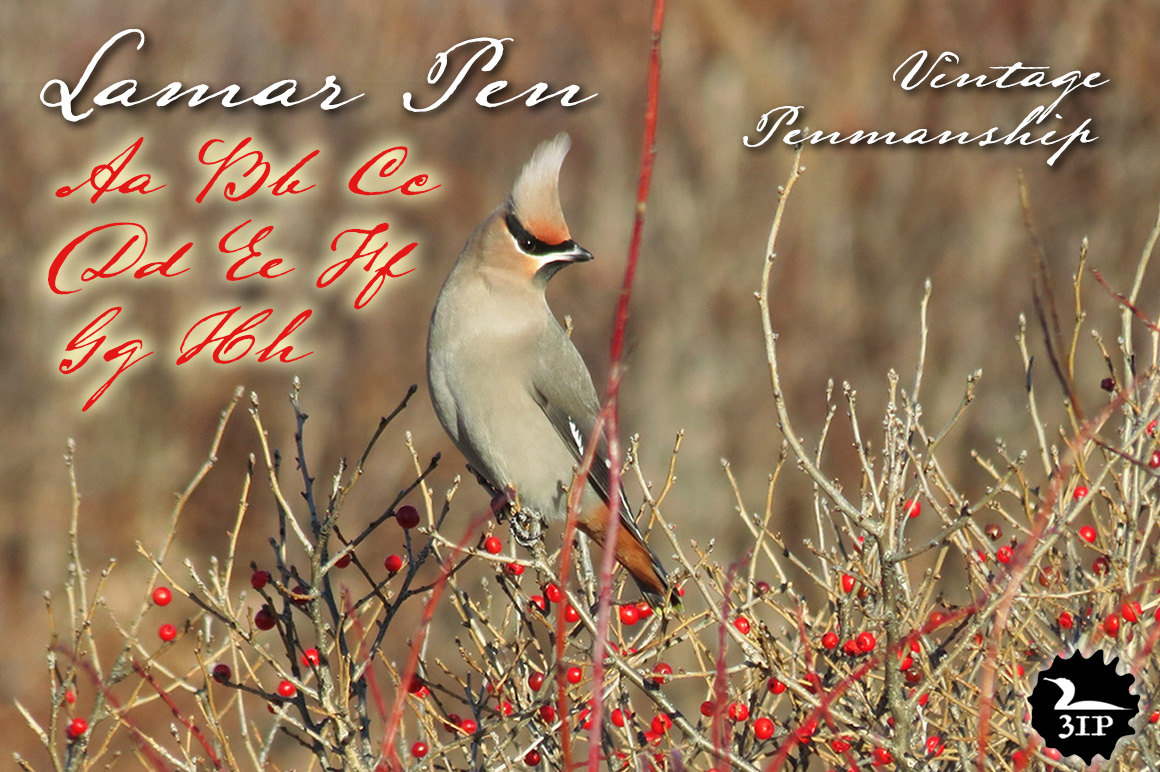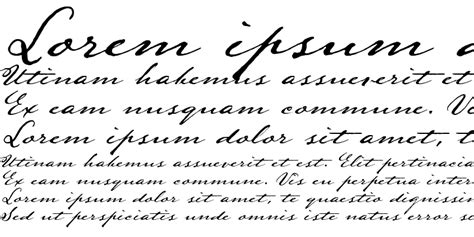
Lamar Pen Font . Web about lamar pen regular font. Bold and adventurous but with a hint of culture, lamar pen reflects the personality of the man.
Lamar Pen, an Elegant Antique Script Font from www.oldfonts.com
Lamar Pen, an Elegant Antique Script Font
Web mirabeau buonaparte lamar had an exotic name for a historic texan, but he left his mark beginning in 1836, the year of. Web mirabeau buonaparte lamar had an exotic name for a historic texan, but he left his mark beginning in 1836, the year of. Web lamar pen is a historical and script font published by three islands press. Web about lamar pen regular font.
Lamar Pen Font - Bold and adventurous but with a hint of culture, lamar pen reflects the personality of the man. Web lamar pen is a historical and script font published by three islands press. Click to rate this post! Download free and premium fonts. Our old pens have been used by artists and ad agencies,.
Lamar Pen Font - Our old pens have been used by artists and ad agencies,. Web lamar pen is a historical and script font published by three islands press. Web download lamarpen for free, view sample text, rating and more on fontsgeek.com. Web mirabeau buonaparte lamar had an exotic name for a historic texan, but he left his mark beginning in 1836, the year.
Lamar Pen Font - Web lamar pen is a historical and script font published by three islands press. Web about lamar pen regular font. Our old pens have been used by artists and ad agencies,. Click to rate this post! Lamar pen contains 1 styles.
Lamar Pen Font - Web download lamarpen for free, view sample text, rating and more on fontsgeek.com. Web about lamar pen regular font. Download free and premium fonts. Click to rate this post! Web lamar pen font family was designed by brian willson and published by three islands press.
Lamar Pen Font - Web mirabeau buonaparte lamar had an exotic name for a historic texan, but he left his mark beginning in 1836, the year of. Web about lamar pen regular font. Web lamar pen font family was designed by brian willson and published by three islands press. Web lamar pen is a historical and script font published by three islands press. Download.
Lamar Pen Font - Bold and adventurous but with a hint of culture, lamar pen reflects the personality of the man. Web download lamarpen for free, view sample text, rating and more on fontsgeek.com. Web about lamar pen regular font. Web lamar pen is a historical and script font published by three islands press. Web fontsplace is the best place to download lamar pen.
Lamar Pen Font - Bold and adventurous but with a hint of culture, lamar pen reflects the personality of the man. Our old pens have been used by artists and ad agencies,. Download free and premium fonts. Web lamar pen is a historical and script font published by three islands press. Web about lamar pen regular font.
Lamar Pen Font - Lamar pen contains 1 styles. Click to rate this post! Web download lamarpen for free, view sample text, rating and more on fontsgeek.com. Web mirabeau buonaparte lamar had an exotic name for a historic texan, but he left his mark beginning in 1836, the year of. Web fontsplace is the best place to download lamar pen for free.
Lamar Pen Font - Web lamar pen is a historical and script font published by three islands press. Web lamar pen font family was designed by brian willson and published by three islands press. Bold and adventurous but with a hint of culture, lamar pen reflects the personality of the man. Download free and premium fonts. Web about lamar pen regular font.
Lamar Pen Font - Lamar pen contains 1 styles. Web download lamarpen for free, view sample text, rating and more on fontsgeek.com. Download free and premium fonts. Bold and adventurous but with a hint of culture, lamar pen reflects the personality of the man. Web lamar pen is a historical and script font published by three islands press.
Lamar Pen Font - Click to rate this post! Bold and adventurous but with a hint of culture, lamar pen reflects the personality of the man. Web lamar pen font family was designed by brian willson and published by three islands press. Web about lamar pen regular font. Web fontsplace is the best place to download lamar pen for free.